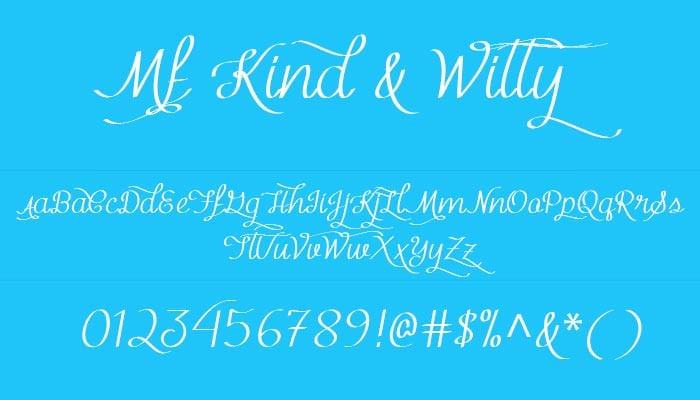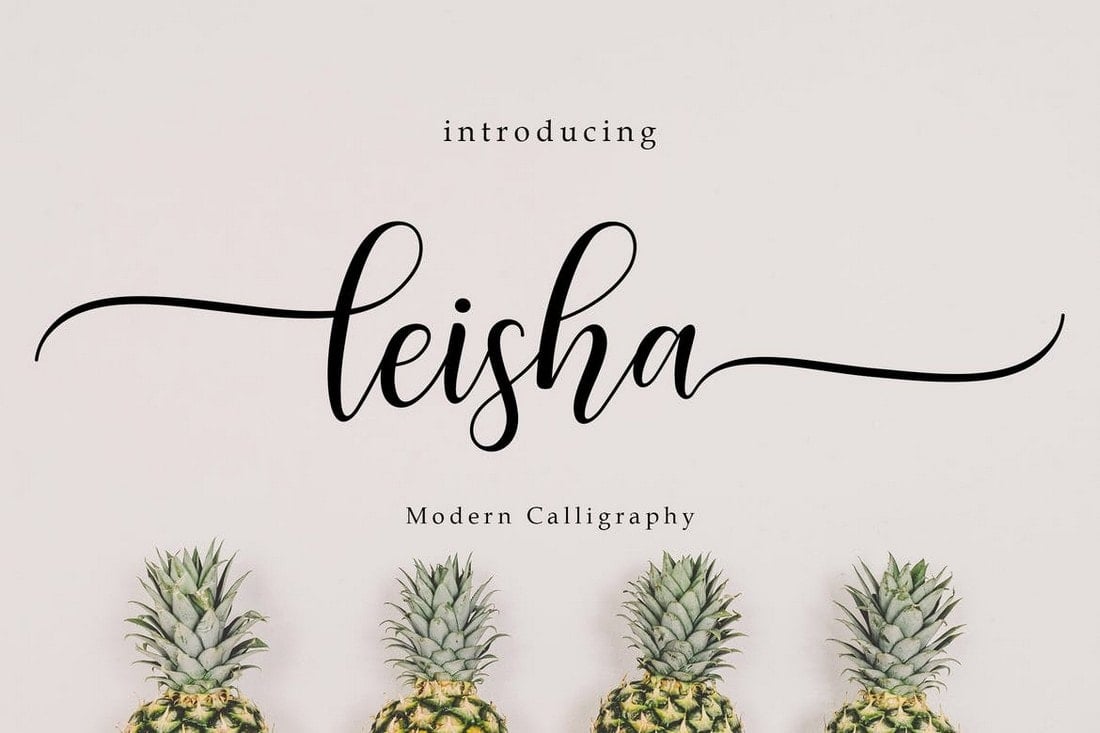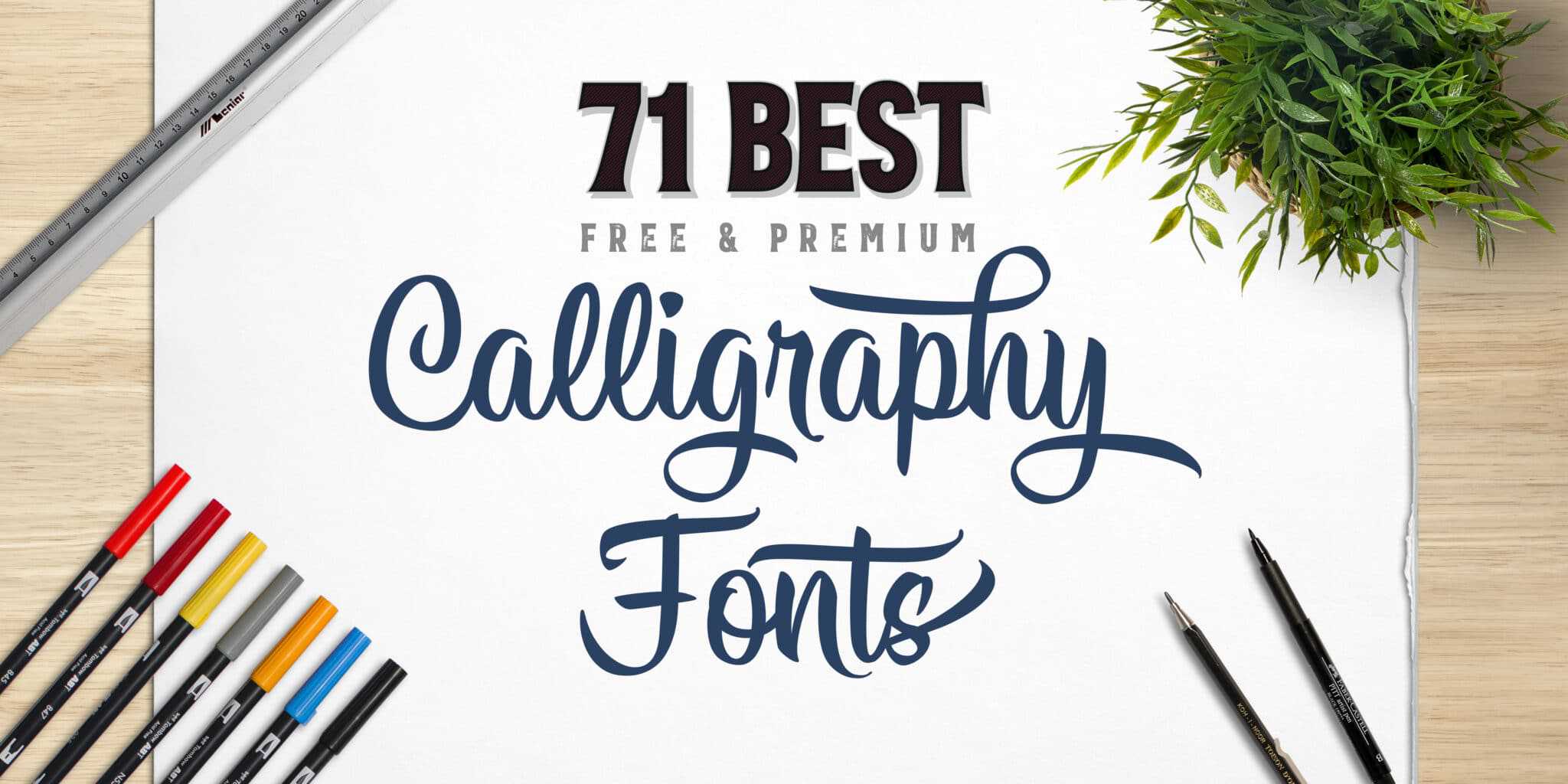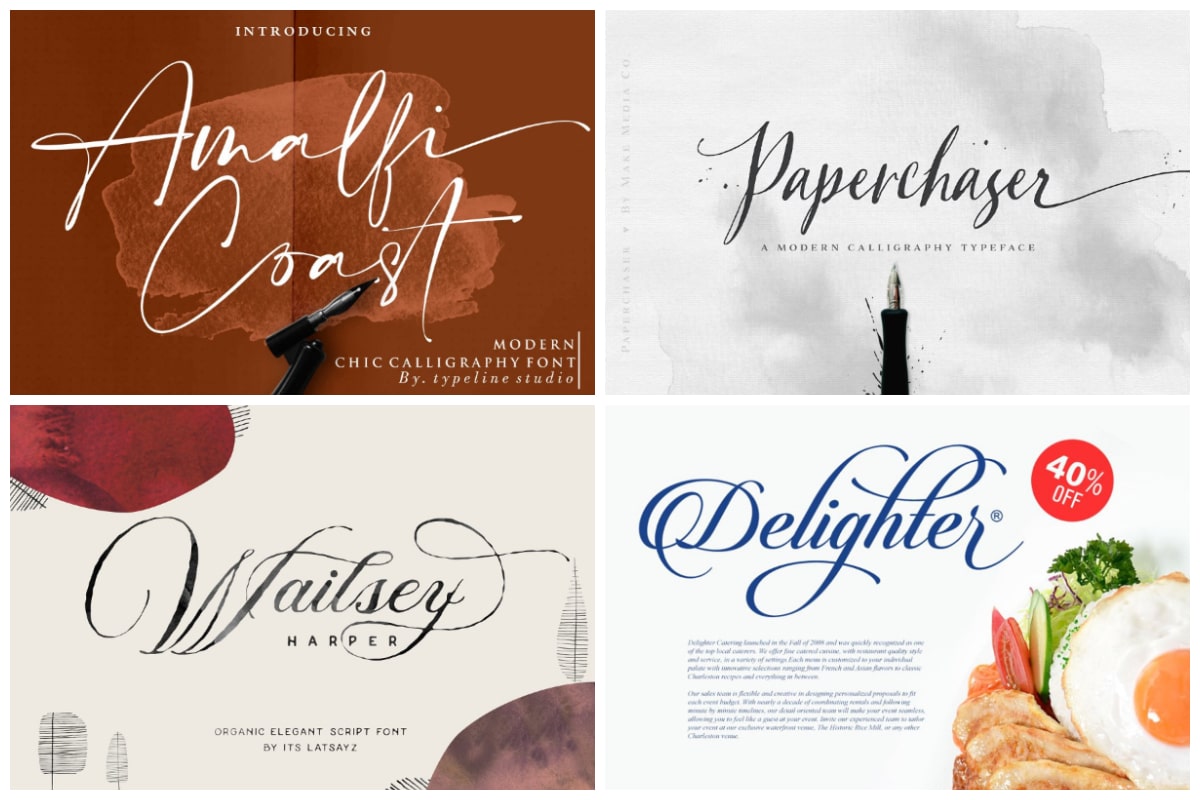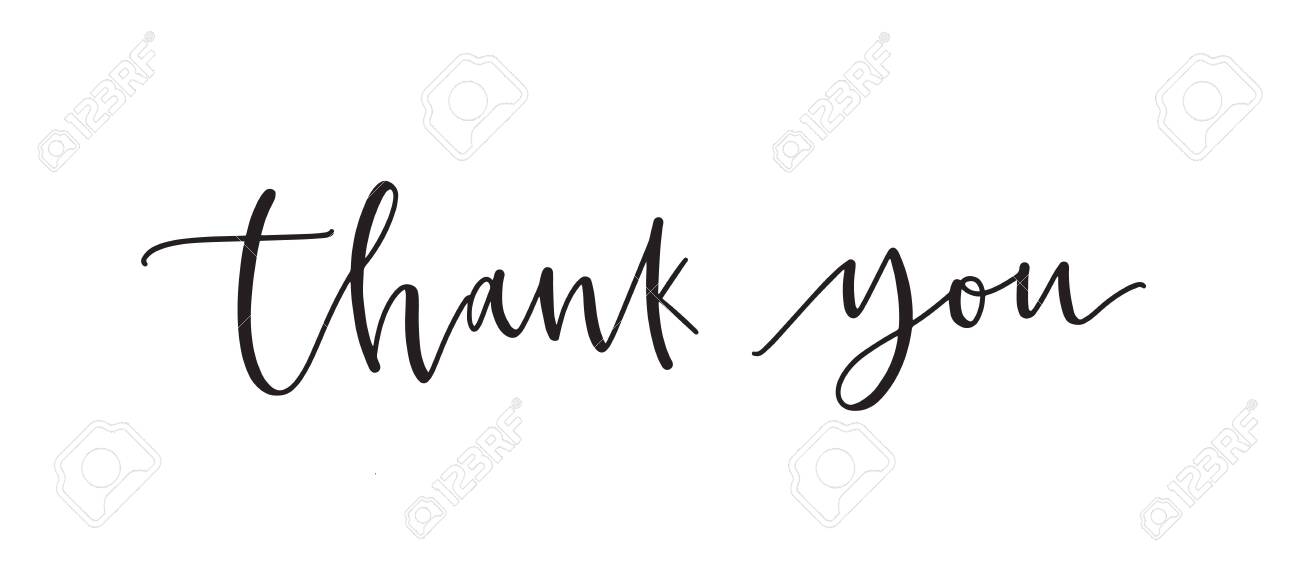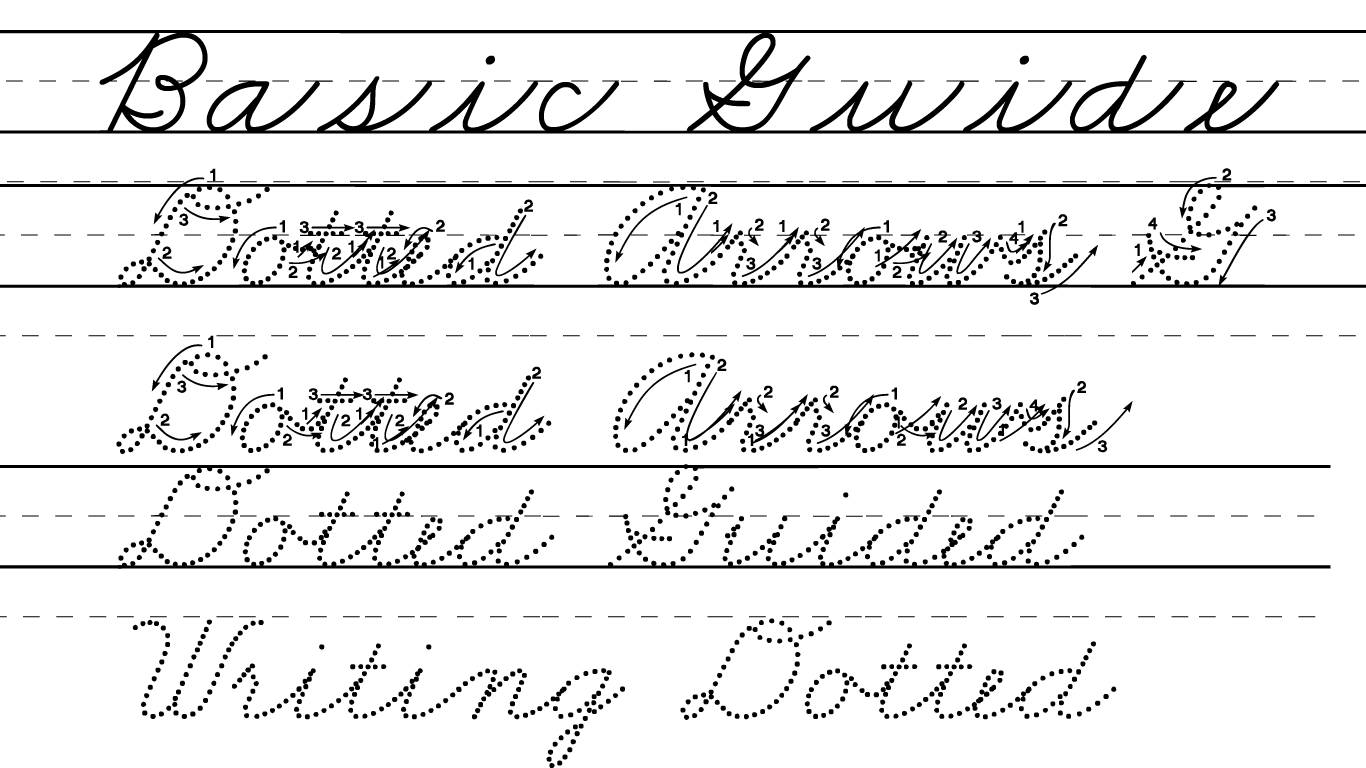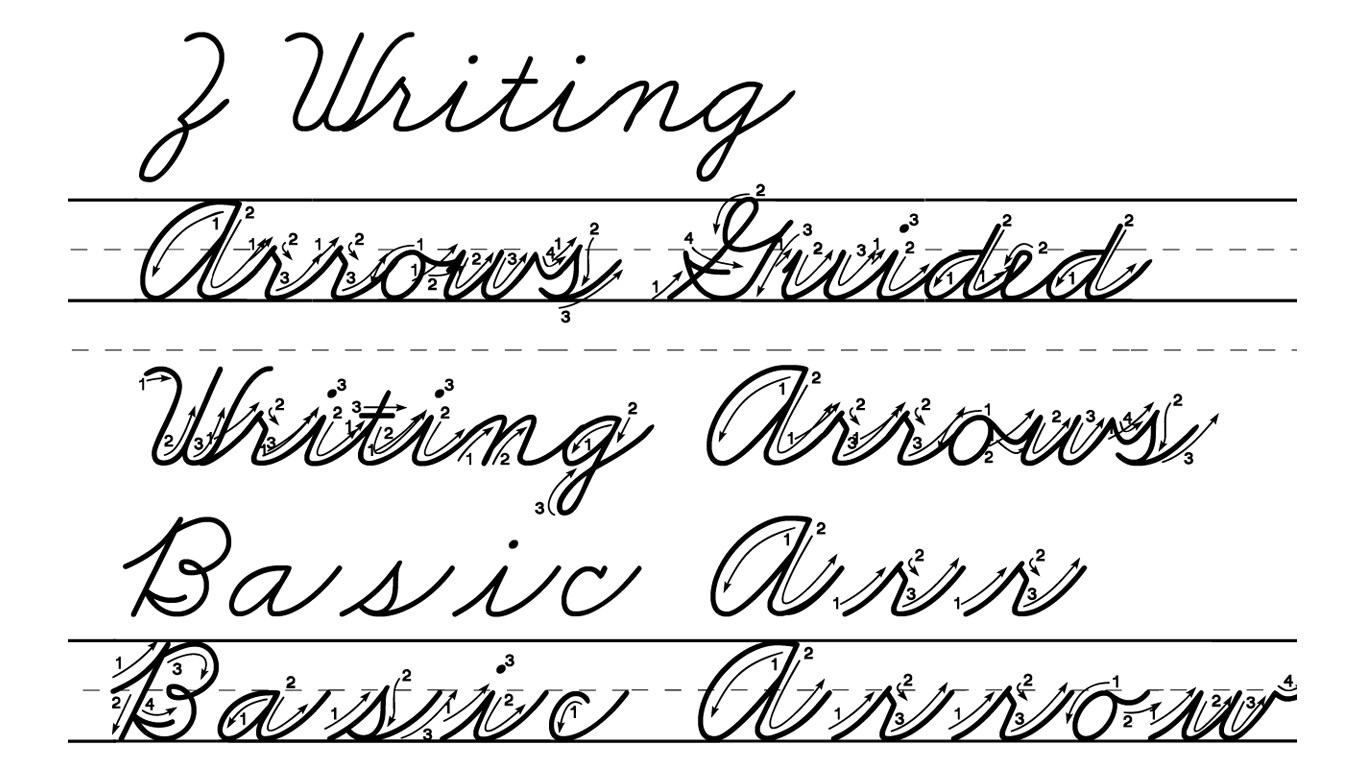
Cursive font capital j page 1 cursive capital calligraphy alphabet capital cursive letters these pictures of this page are aboutcursive font capital j Is it very difficult for people that speak natively a language that doesnt use roman i do. Rage Italic casual brush script. However if you are looking for an easy-to-use computer font that mimics the Italic hand Microsoft Word has a font labeled Lucinda Calligraphy that you can use.
The cursive handwriting style is functional and intended to be used for everyday writing. These fonts are here to impact lives and the mere development of fonts on the face of software medium was to help people expressing their thoughts in style. Cursive Font Handwriting Text Generator.
Calligraphy is an artistic writing style where the pressure is varied to create thick and thin lines all in a single stroke. Cursive fonts mimic the style of human penmanship where the letters flow together. Cursive fonts are also not part of any standardized font sets making it difficult to copy and paste.
Lets take a look at all the cursive fonts currently available with Microsoft Word. Calligraphy is an artistic writing style where the pressure is varied to create thick and thin lines all in a single stroke. Microsoft Word is one of the most popular word processors of modern-day computing and it comes bundled with tons of font choices.
Carolyna is an elegant yet whimsically handwritten calligraphy font that was created with readability in mind. In Control Panel double-click Fonts. Free Fonts Free Calligraphic Fonts 1 20 Free Brilliant Calligraphic Fonts Free Calligraphy Fonts Microsoft Word Fonts.